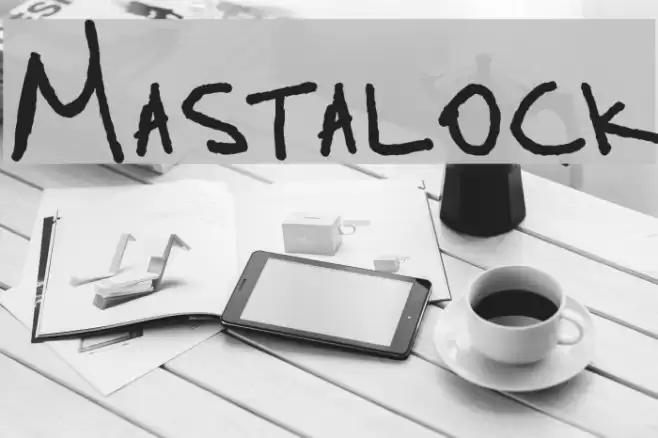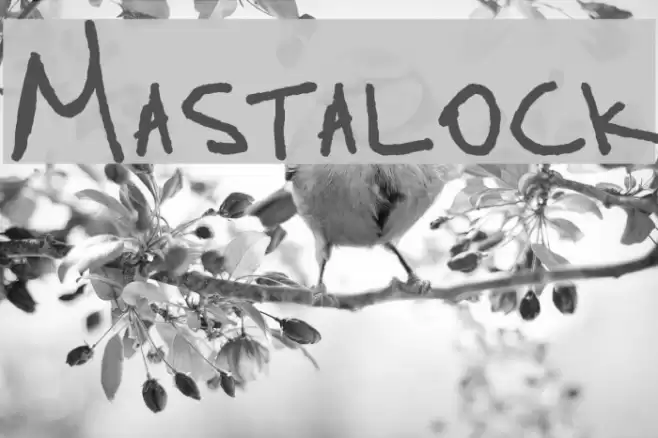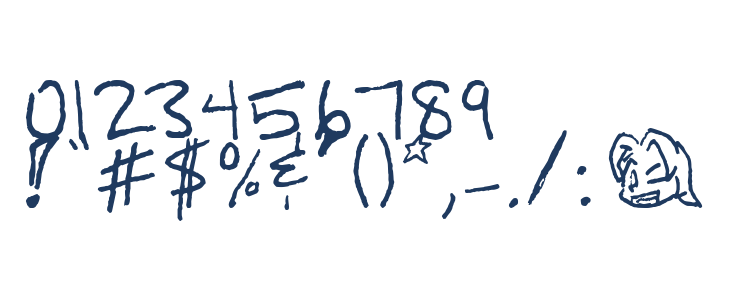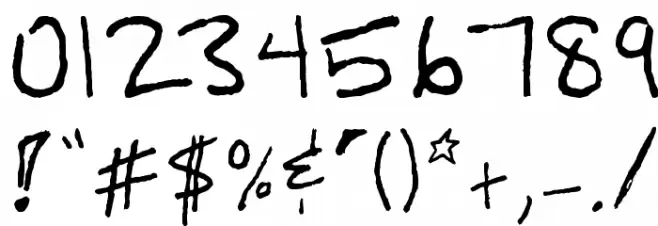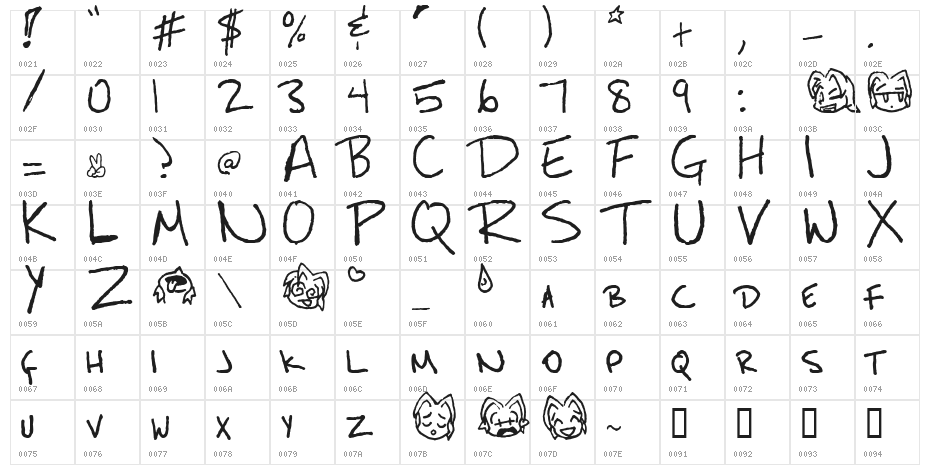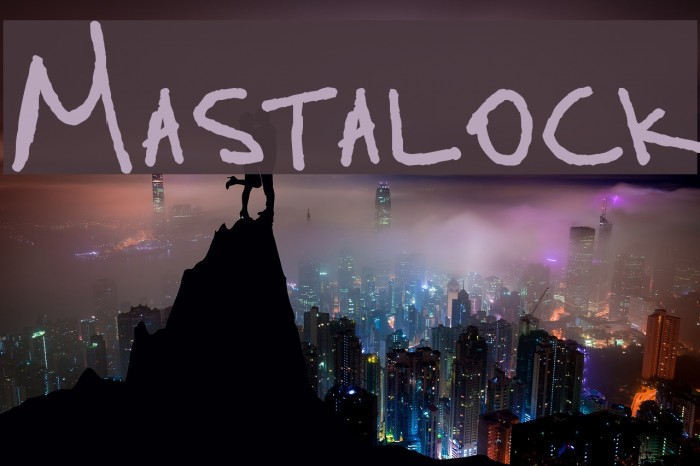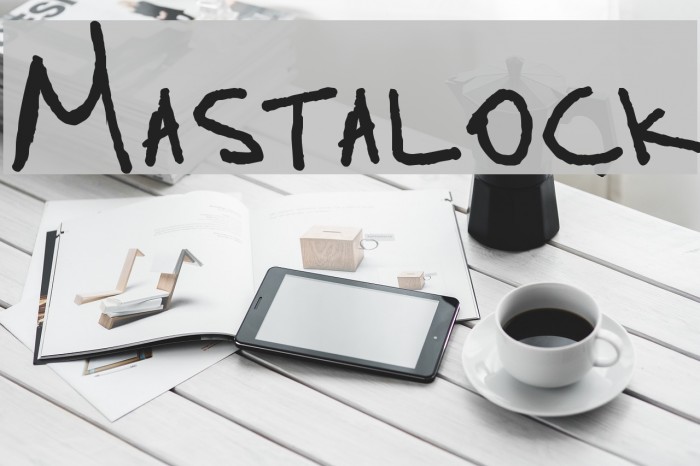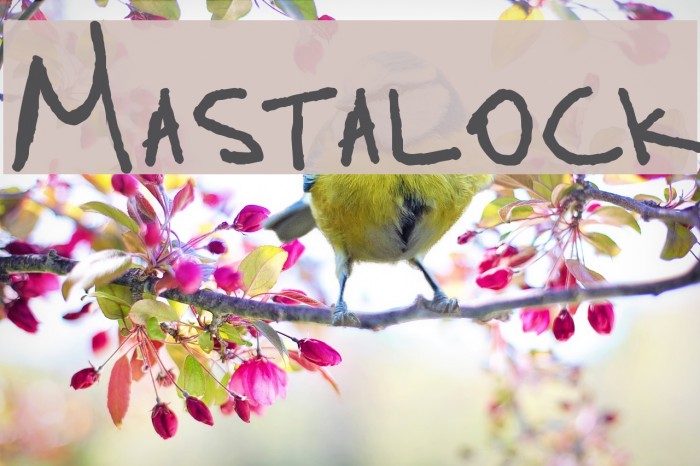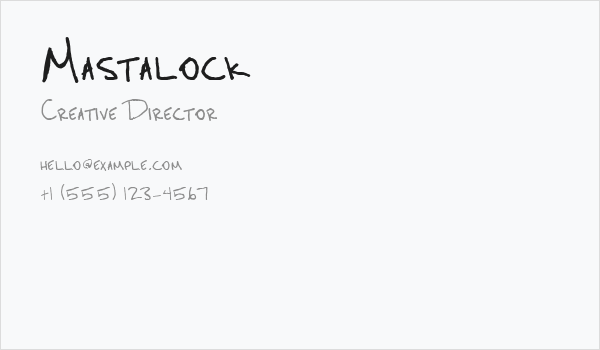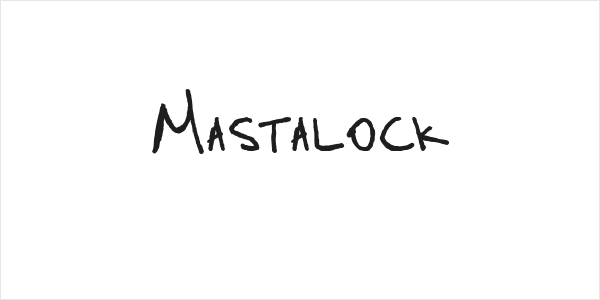
Mastalock Font
Mastalock Description
This font features a handwritten style with a casual and organic appearance. The characters are slightly irregular, giving it a personal and informal touch. The strokes are uneven, mimicking the natural flow of handwriting, which adds a sense of authenticity and warmth. The uppercase and lowercase letters maintain a consistent style, while the numerals and special characters blend seamlessly with the overall design. This font is ideal for projects that require a personal or creative flair, such as invitations, greeting cards, or artistic branding.
A casual, handwritten font with an organic and personal touch from Uncategorized fonts.
- Proposed Projects: Ideal for invitations, greeting cards, artistic branding, and creative projects.
- Overall Style: Casual, Organic
- Use Case: Headlines, Creative projects, Personal notes